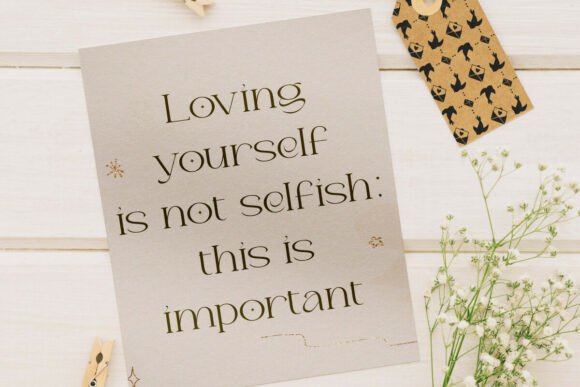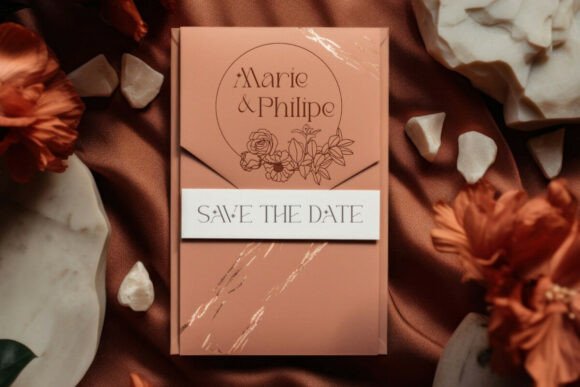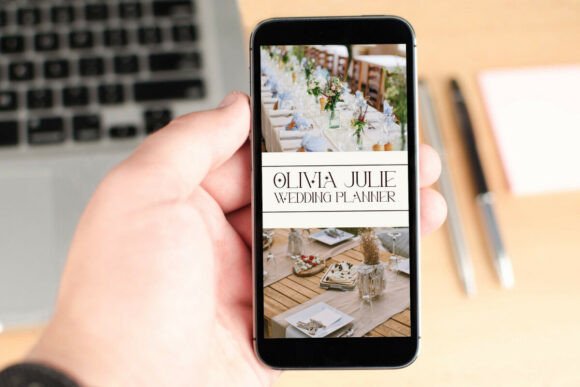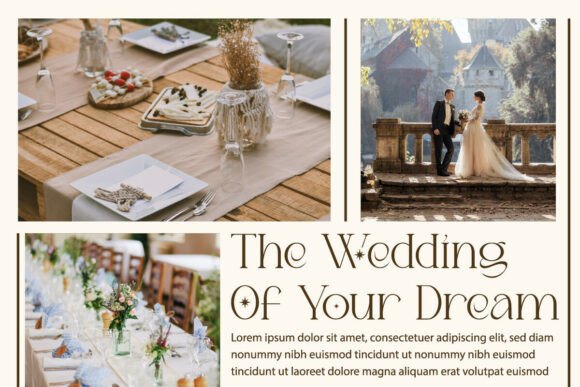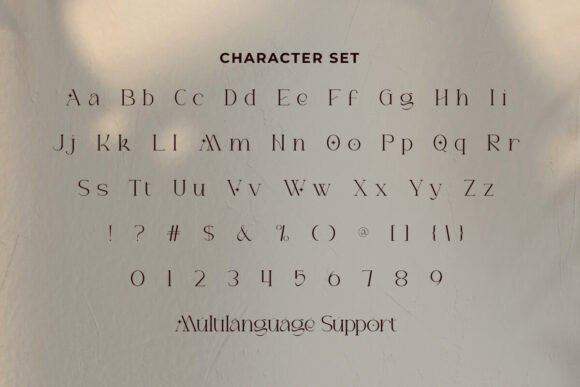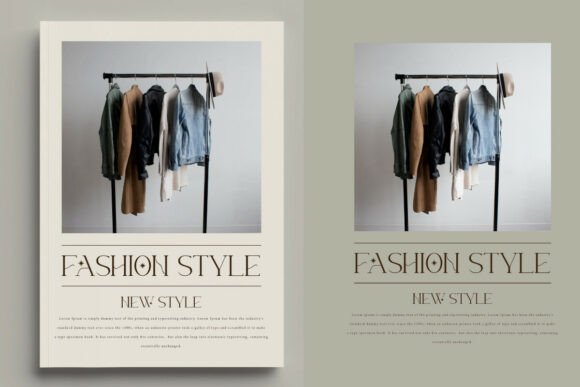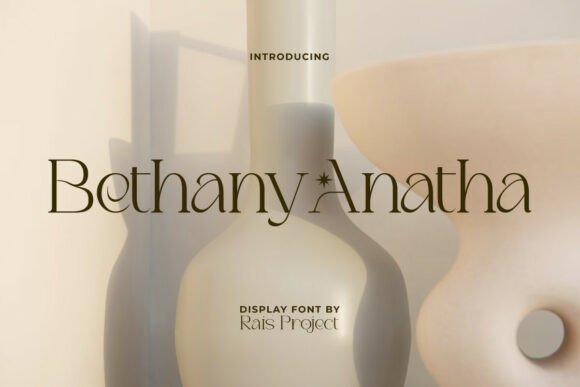
The Elegant Bethany Anatha Font: A Designer’s New Best Friend
I’ll never forget the time I was working on a branding project for a high-end fashion client. I had spent hours agonizing over the perfect logo design, but something was missing. The font I had chosen just wasn’t elevating the design to the level I knew my client expected. That’s when I stumbled upon the Bethany Anatha font, and let me tell you, it was love at first sight! 💕
Created by RaisProject, Bethany Anatha is an elegant, beautiful serif font that has quickly become a staple in my design toolkit. Its versatility and sophistication make it perfect for a wide range of design projects, from brand image and packaging to invitations and website pages.
• ✅ Elegant and sophisticated design that’s perfect for high-end brands
• ✅ Highly versatile and can be used for a wide range of design projects
• ✅ Beautifully crafted serifs and letterforms that add a touch of luxury to any design
• ✅ Easy to read and works well in both digital and print formats
• ⚠️ Some users may find the font a bit too ornate for certain design projects
• ⚠️ May not work as well with very short or very long text blocks
4. Experiment with the font’s OpenType features, such as ligatures and stylistic alternates, to add some extra flair to your design
The Story Behind Bethany Anatha
RaisProject, the creator of Bethany Anatha, is a passionate design studio that focuses on crafting beautiful, unique fonts for creatives. According to their story, Bethany Anatha was inspired by traditional serif fonts with a modern twist. The goal was to create a font that’s both elegant and versatile, perfect for designers who want to add a touch of sophistication to their work.
Q: Is Bethany Anatha suitable for body text?
A: While Bethany Anatha is a beautiful font, it’s best suited for headings, titles, and short text blocks. For body text, you may want to consider a font with better readability.